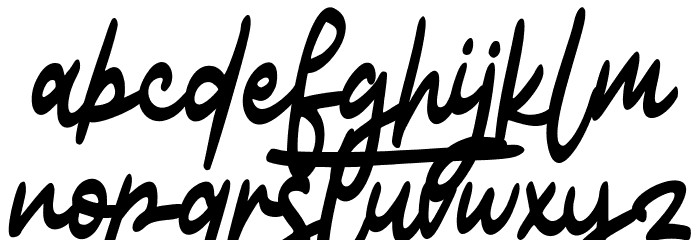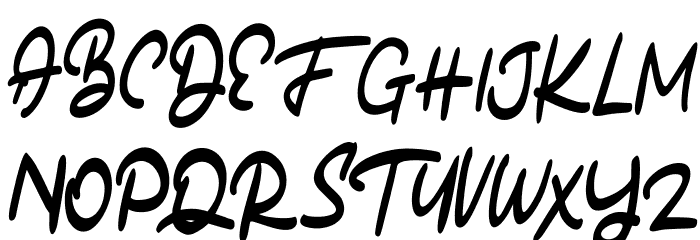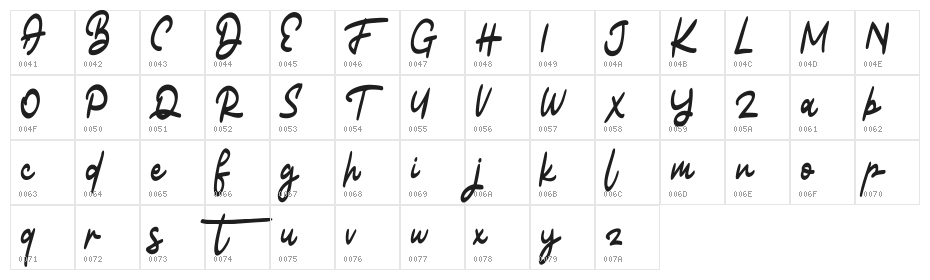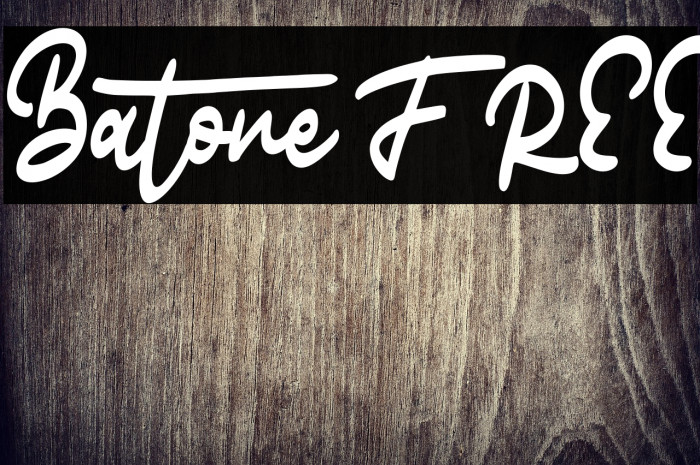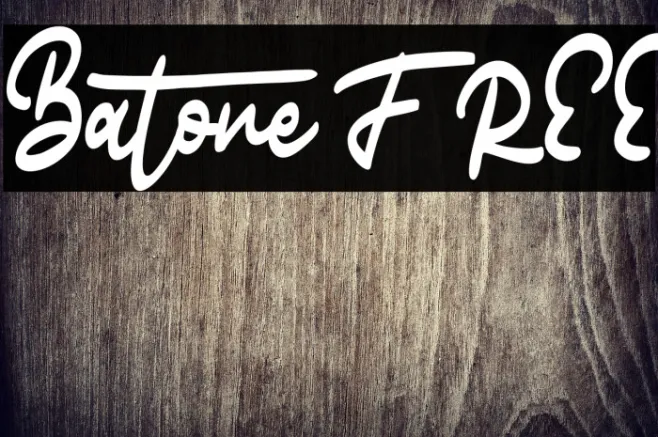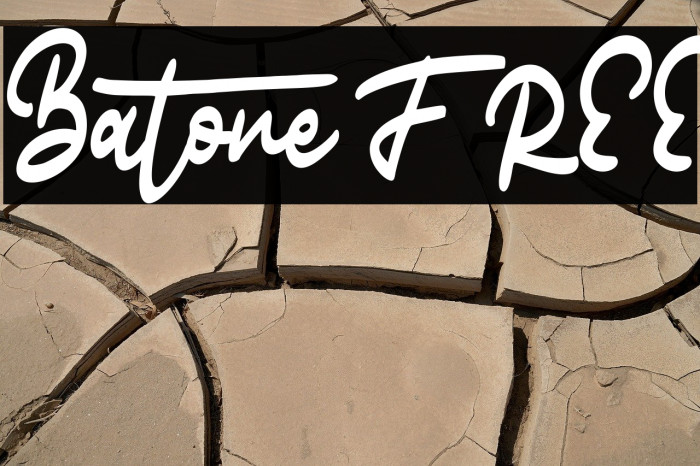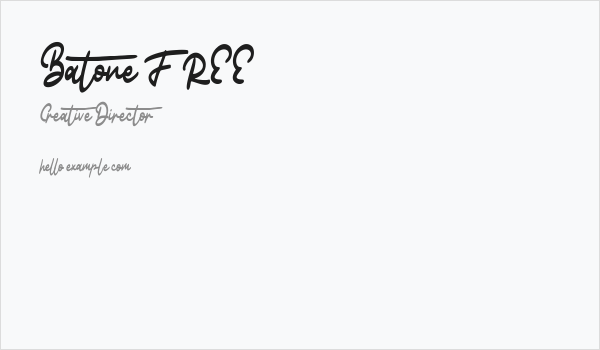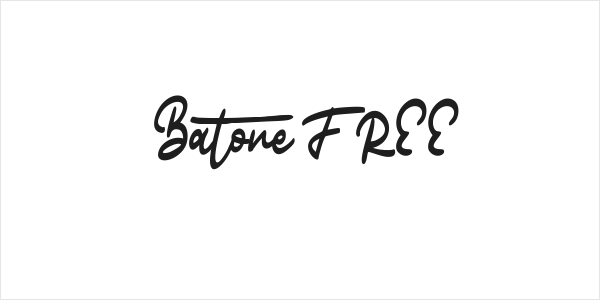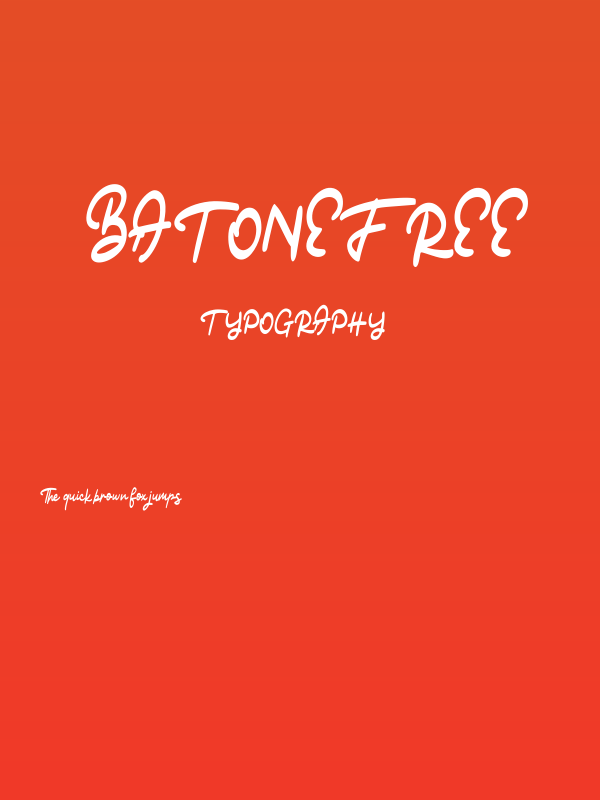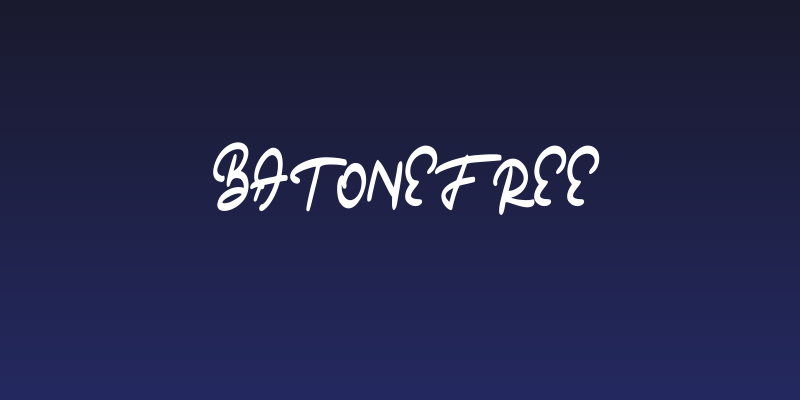
Batone FREE Font
This font features a dynamic and fluid handwritten style, characterized by its bold and expressive strokes. The letters are connected in a cursive manner, giving it a continuous flow that mimics natural handwriting. The uppercase and lowercase letters maintain a consistent style, with some letters having unique flourishes that add to its charm. The numbers and special characters are crafted with the same attention to detail, ensuring a cohesive look across all glyphs. This font exudes a sense of creativity and personal touch, making it ideal for projects that require a humanistic and approachable feel.
A bold, cursive handwritten font with expressive strokes and fluid connections.